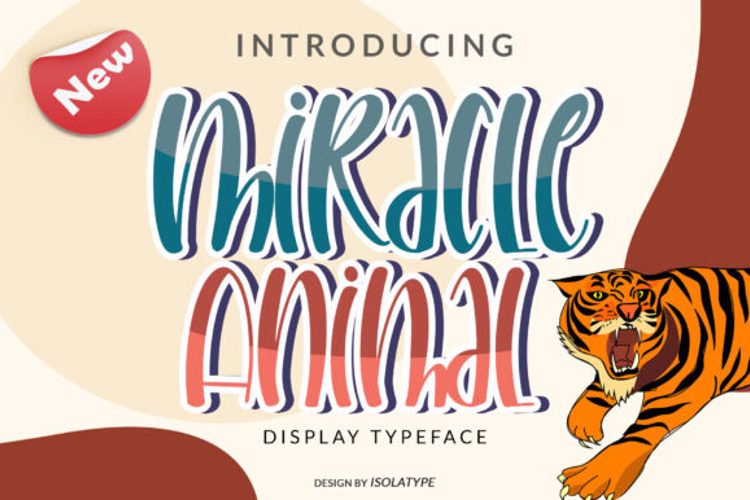
Miracle Animal Font
About Miracle Animal Font
Miracle Animal is a cute display font. Its casual style makes it incredibly fitting to a wide range of designs, so add it confidently to your projects, and you will be amazed by the outcome!